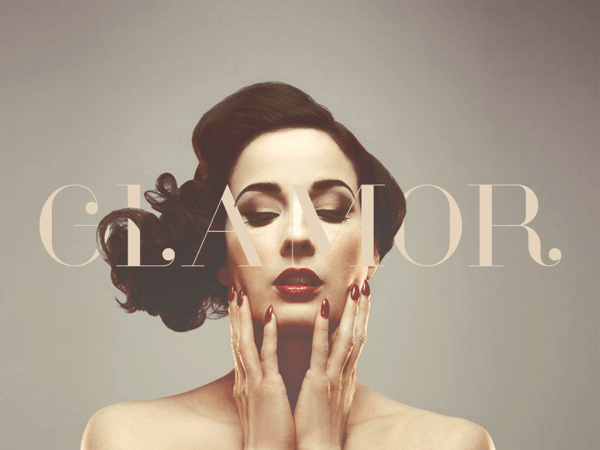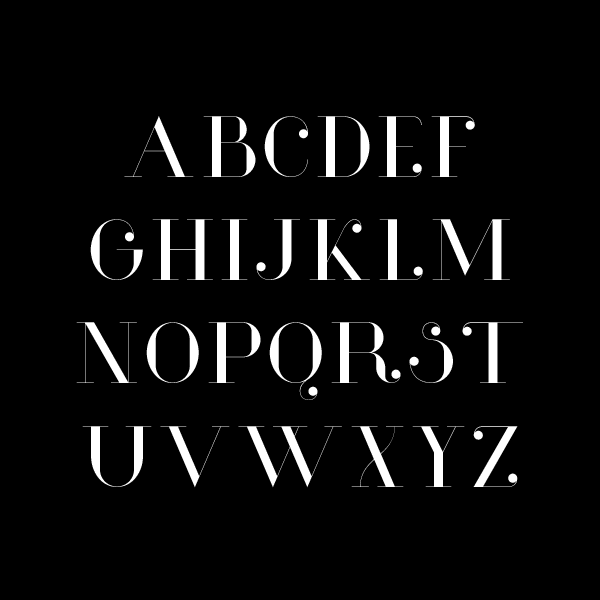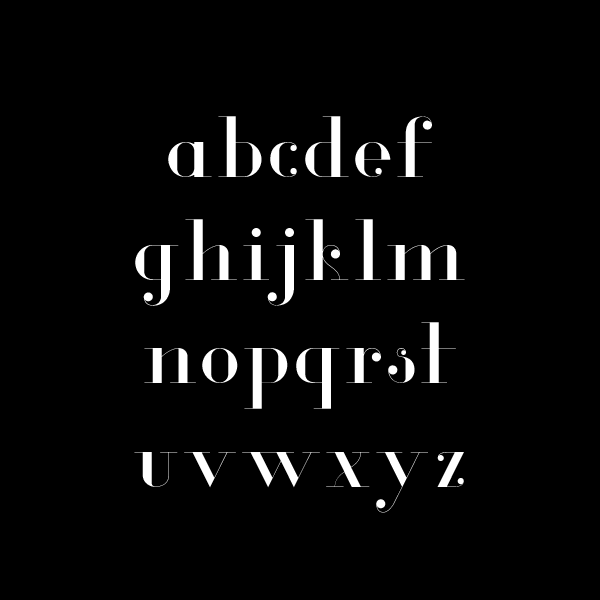
Glamor is a Free Modern typeface full of glamour ideal for fashion as showed in the examples shared on the authors behance page, a must for sure : )
by: Hendrick Rolandez
Glamor free typeface by Hendrick Rolandez
Glamor typeface